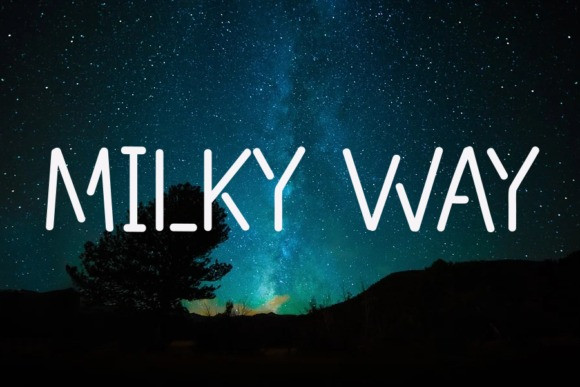
Electro Font
Electro Display Font is a minimal and neat display font. It can easily be matched to an incredibly large set of projects, so add it to your creative ideas and notice how it makes them stand out!